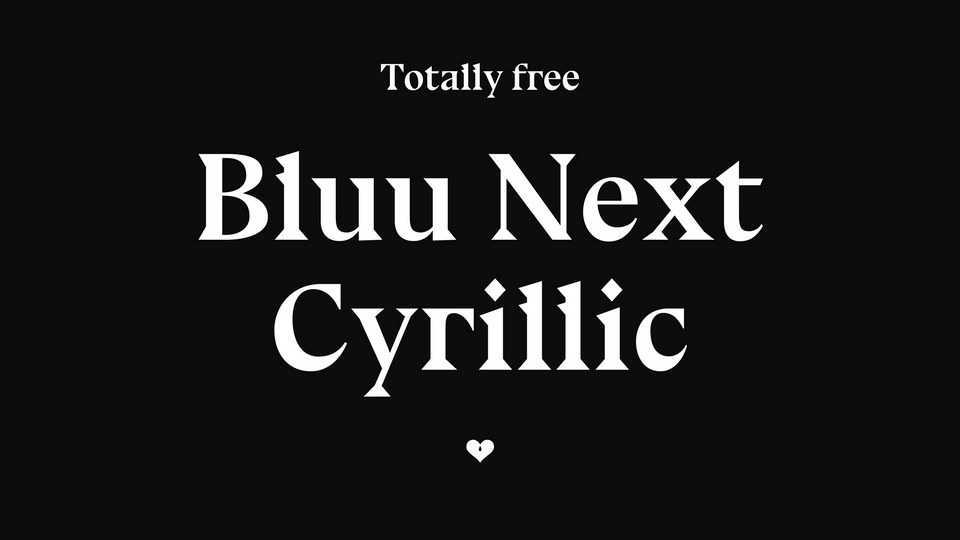
DownloD Bluu Next Cyrillic font, a cyrillization project of the original typeface, designed by Jean-Baptiste Morizot in 2014. Bluu Next is a sharp and precise typeface, a totally good choice to replace any boring serif font like the Times New Roman or the Caslon Graphic.
Designer: Jean-Baptiste Morizot